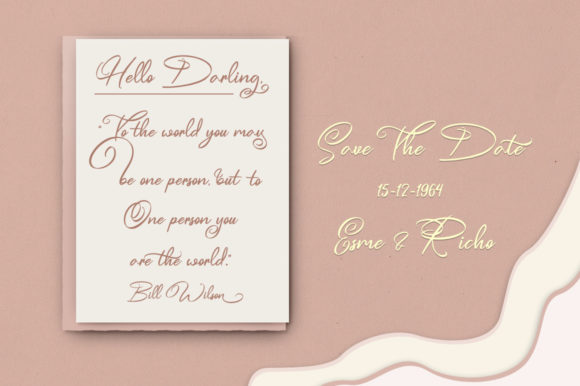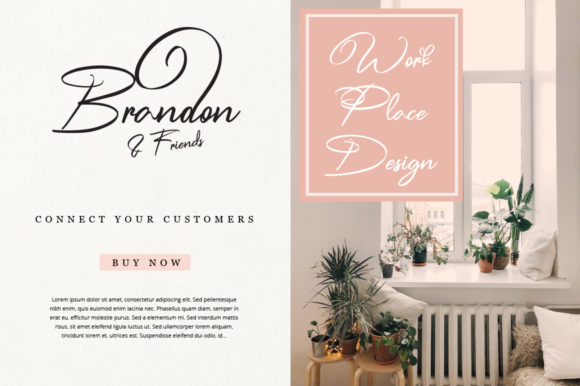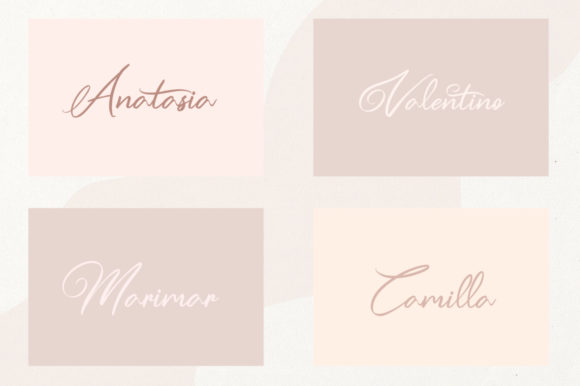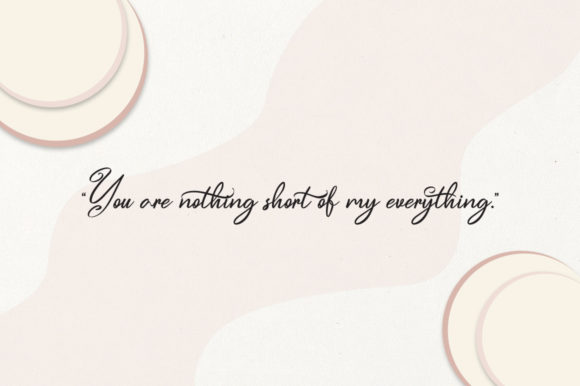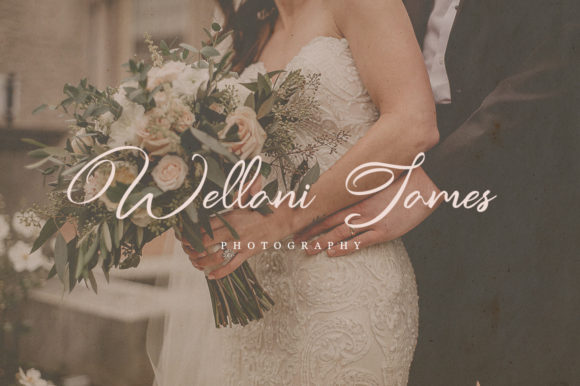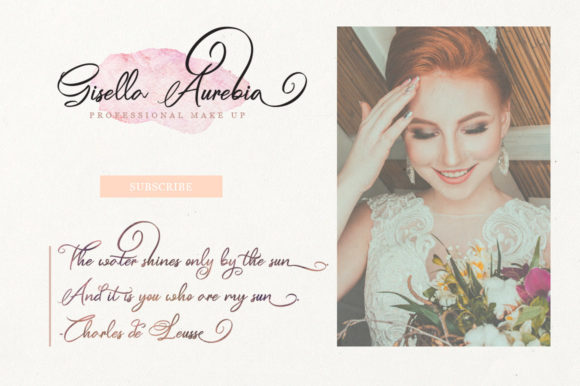
Discover the Charm of Esmetralda Font: A Romantic Handwritten Delight
Are you a designer or crafter looking for a font that exudes romance and elegance? Look no further than Esmetralda, a strikingly beautiful handwritten font that is sure to capture your heart. With its bold swashes and incredible feel, Esmetralda is the perfect choice for a wide range of design projects, from wedding invitations and stationery to branding and packaging.
The Unique Characteristics of Esmetralda Font
Esmetralda is a one-of-a-kind font that boasts a unique blend of classic and modern elements. Its handwritten style gives it a personal and intimate feel, while its bold swashes add a touch of drama and sophistication. The font’s romantic and lovely aesthetic makes it perfect for designs that require a touch of whimsy and elegance.
What Makes Esmetralda Font So Special?
So, what sets Esmetralda apart from other fonts? Here are just a few of its standout features:
• Romantic and Lovely Aesthetic: Esmetralda’s handwritten style and bold swashes give it a romantic and lovely aesthetic that is sure to capture the hearts of designers and crafters.
• Incredible Feel: The font’s smooth and flowing lines create an incredible feel that is both elegant and sophisticated.
• Bold Swashes: Esmetralda’s bold swashes add a touch of drama and flair to any design, making it perfect for projects that require a bit of extra personality.
• Versatile: Esmetralda is a versatile font that can be used for a wide range of design projects, from wedding invitations and stationery to branding and packaging.
How to Use Esmetralda Font in Your Designs
Esmetralda is a versatile font that can be used in a variety of design projects. Here are just a few ideas to get you started:
• Wedding Invitations and Stationery: Esmetralda’s romantic and elegant aesthetic makes it perfect for wedding invitations, stationery, and other wedding-related designs.
• Branding and Packaging: The font’s bold swashes and incredible feel make it a great choice for branding and packaging projects that require a bit of extra personality.
• Signs and Posters: Esmetralda’s large and bold style makes it perfect for signs and posters that require a bit of extra flair.
• Digital Designs: The font’s smooth and flowing lines make it perfect for digital designs, such as social media graphics and website headers.
Tips and Tricks for Working with Esmetralda Font
Here are a few tips and tricks to help you get the most out of Esmetralda:
• Experiment with Different Sizes: Esmetralda looks great in a variety of sizes, so don’t be afraid to experiment and find the perfect size for your design.
• Play with Color: The font’s bold swashes and incredible feel make it perfect for designs that feature bold and bright colors.
• Pair it with Other Fonts: Esmetralda pairs well with a variety of other fonts, so don’t be afraid to experiment and find the perfect combination for your design.
Esmetralda is a strikingly romantic and lovely handwritten font that is sure to capture the hearts of designers and crafters. With its bold swashes and incredible feel, it’s the perfect choice for a wide range of design projects. Whether you’re working on a wedding invitation, branding project, or digital design, Esmetralda is sure to add a touch of elegance and sophistication. So why not give it a try and see for yourself why Esmetralda is a font like no other?